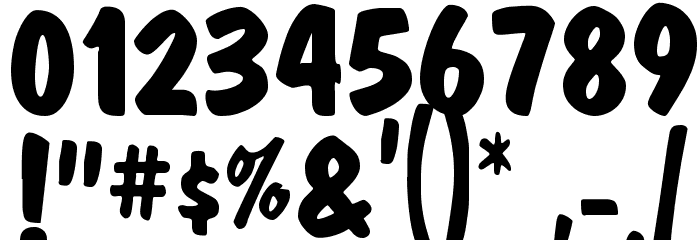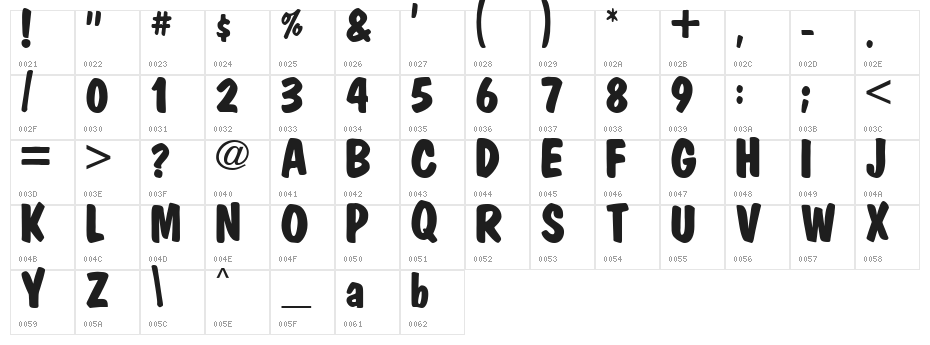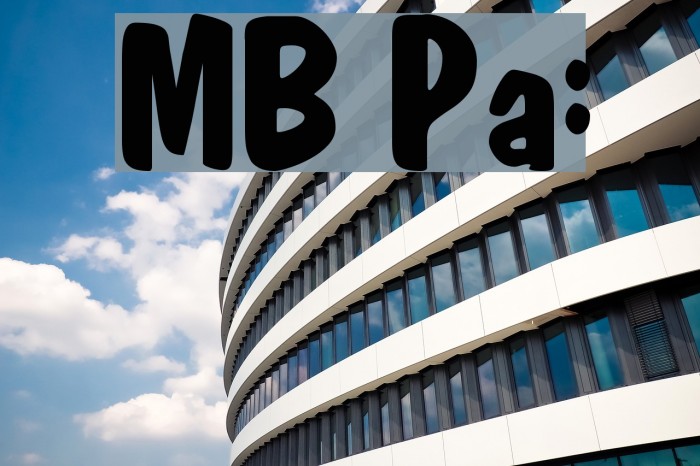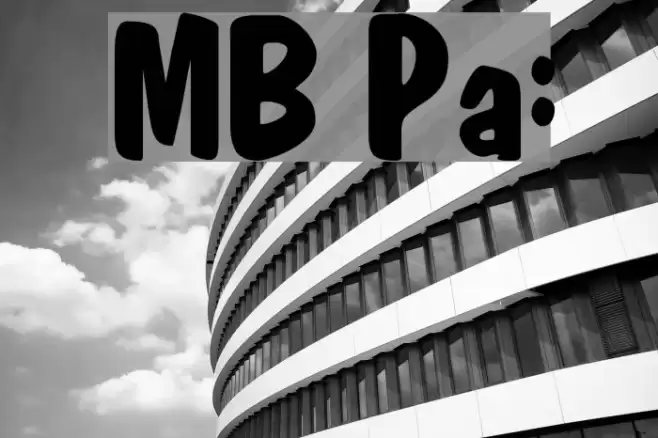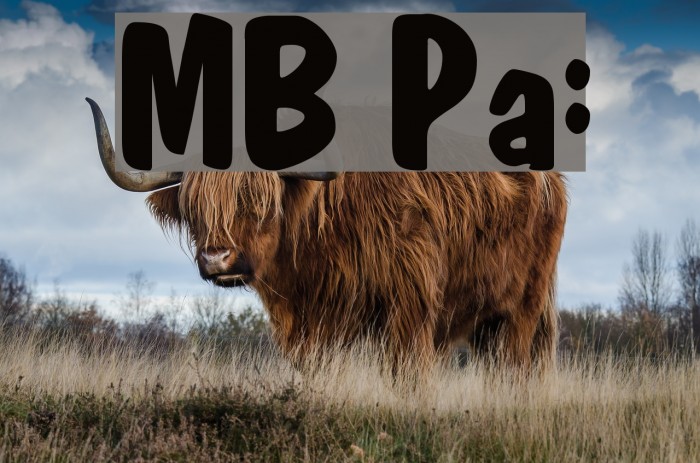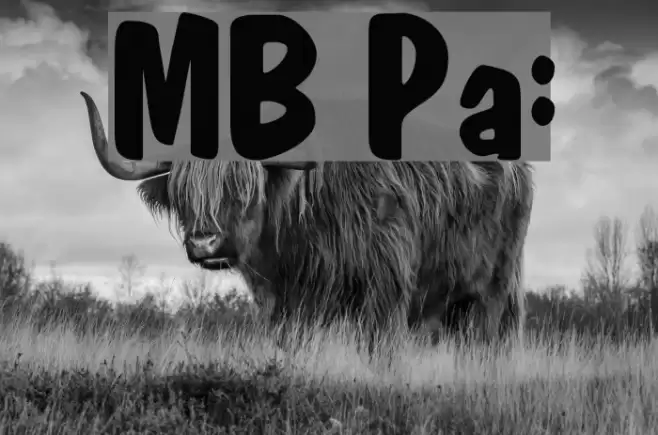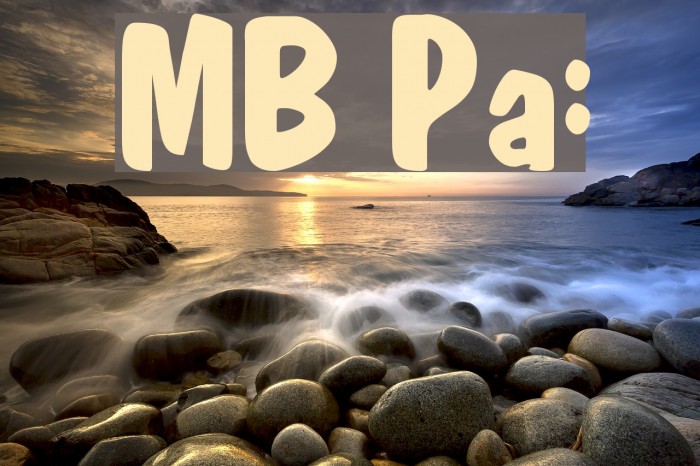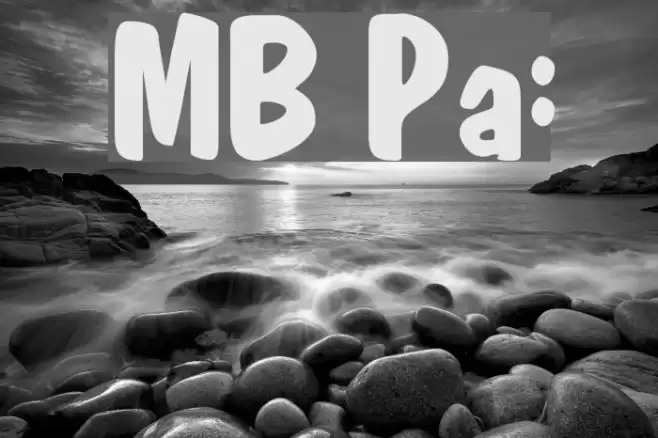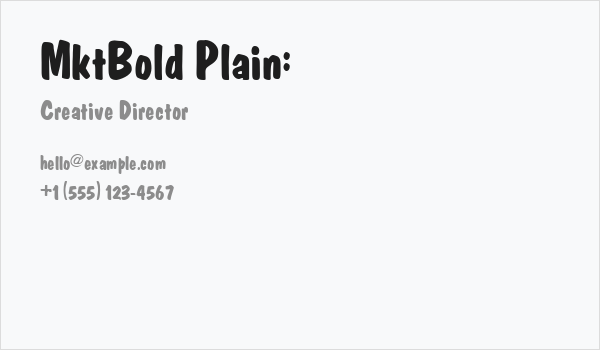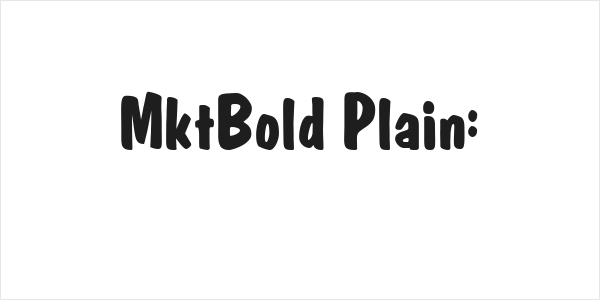
MktBold Plain: Font
MktBold Plain: Description
This bold and playful font features thick, rounded strokes that give it a friendly and approachable appearance. The characters are slightly condensed, with a consistent weight throughout, making it ideal for capturing attention. The uppercase and lowercase letters maintain a uniform style, with a slight slant that adds a dynamic feel. The numbers and special characters are equally bold, ensuring readability and consistency across all uses. This font's design is perfect for projects that require a fun and energetic vibe, such as children's books, playful branding, or eye-catching headlines.
| Overall Style | Playful, Energetic |
| Proposed Projects | Ideal for children's books, playful branding, eye-catching headlines, and posters. |